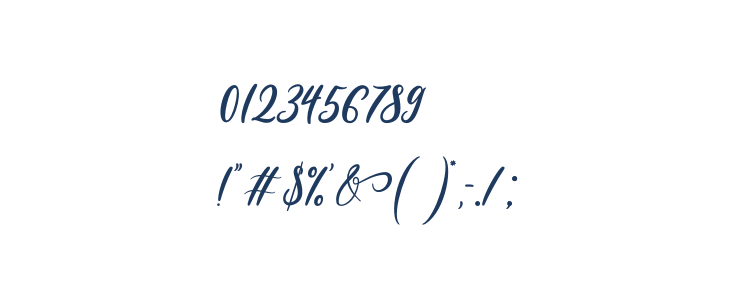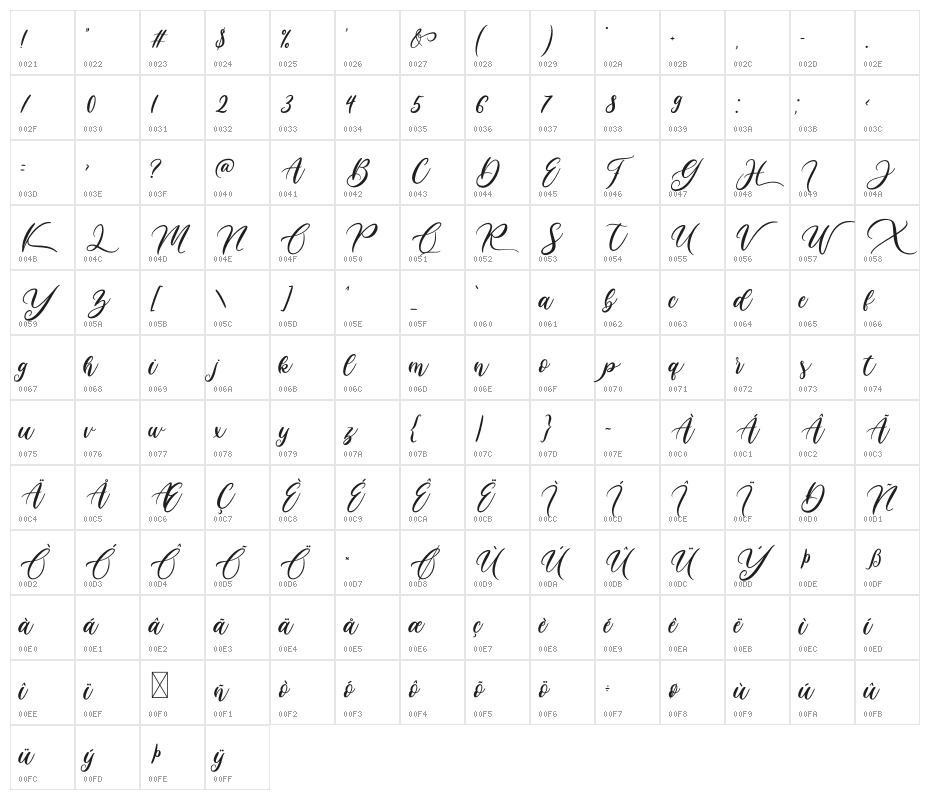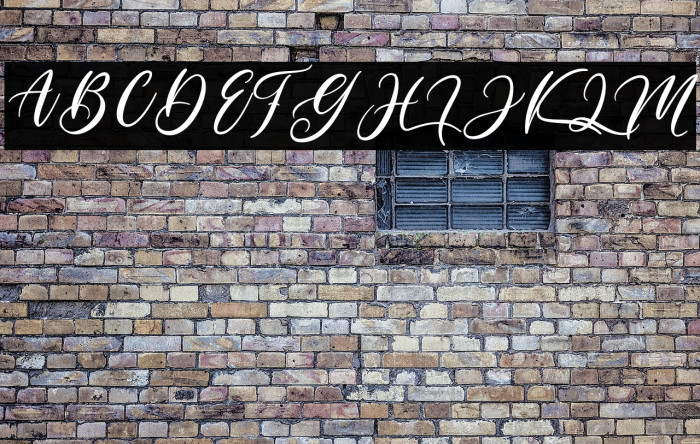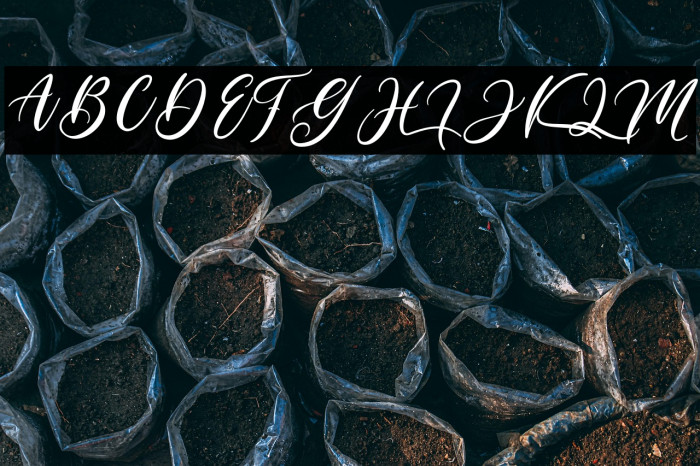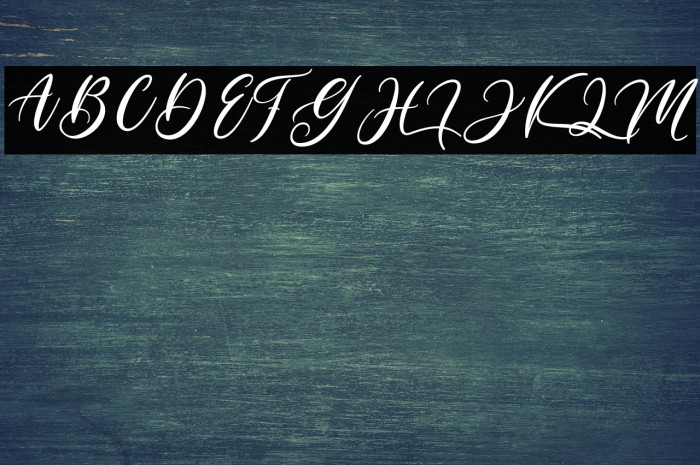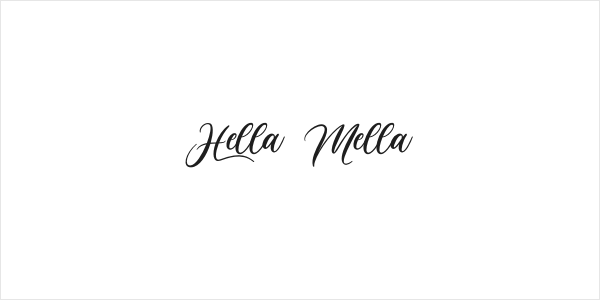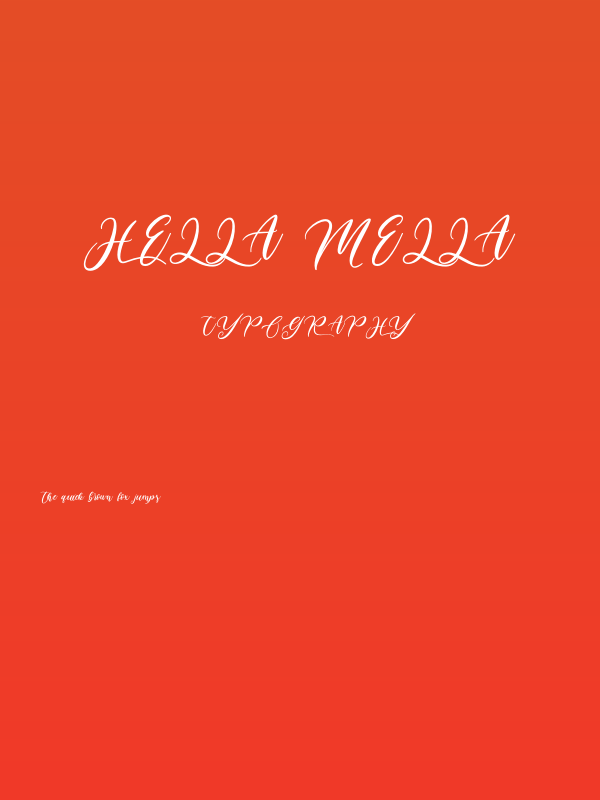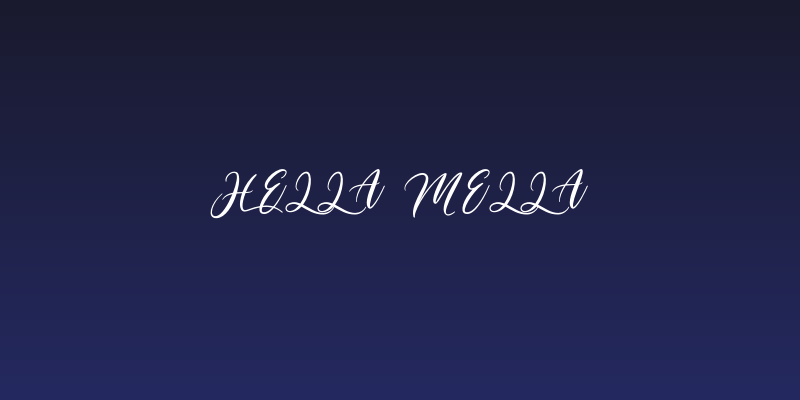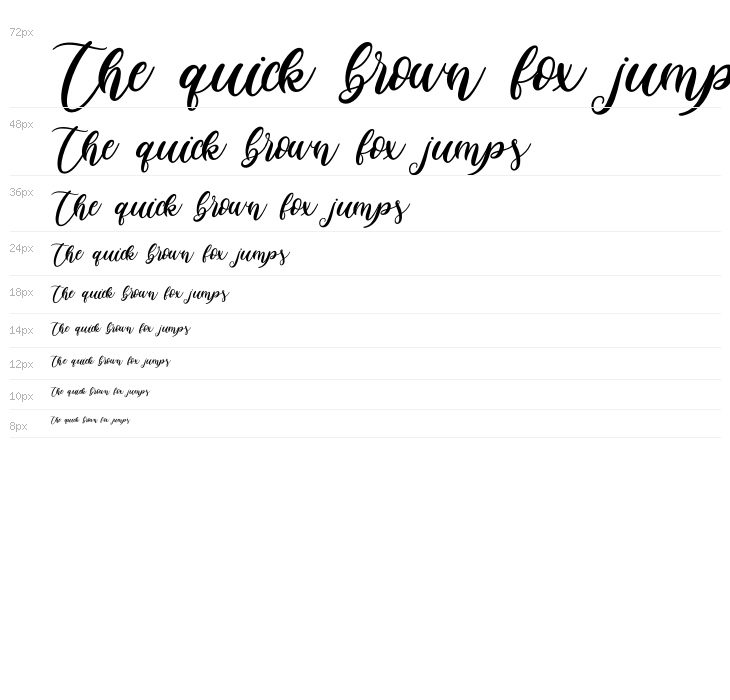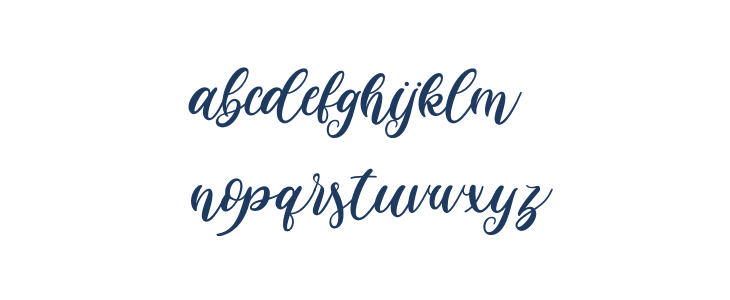
Hella Mella Font
Hella Mella Description
This font is a beautifully crafted script style that exudes elegance and sophistication. The uppercase letters are gracefully connected, with sweeping curves and flourishes that give a sense of fluidity and movement. The lowercase letters maintain a consistent flow, with rounded forms and smooth transitions between strokes. The numerals are distinct yet harmonious with the overall style, featuring similar curves and a touch of flair. Special characters are thoughtfully designed to match the aesthetic, ensuring a cohesive look across all text. This font is perfect for adding a personal touch to any project, with its artistic and refined appearance.